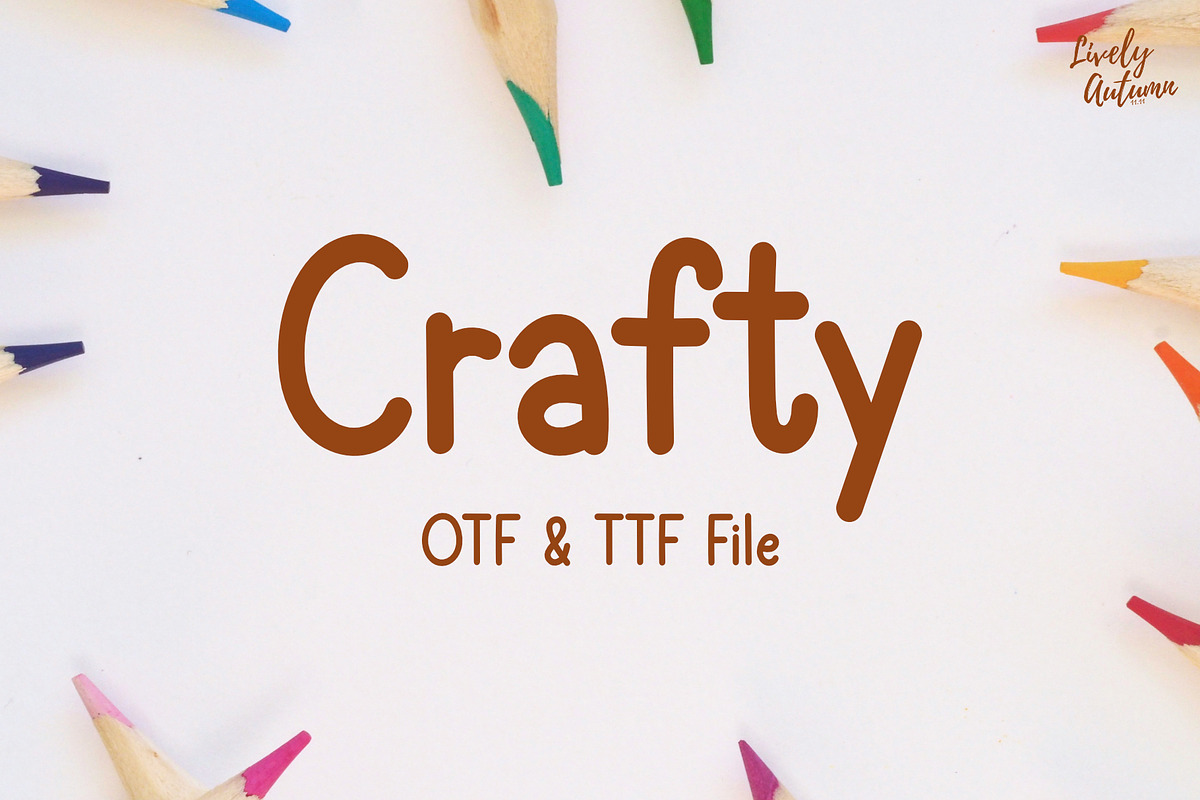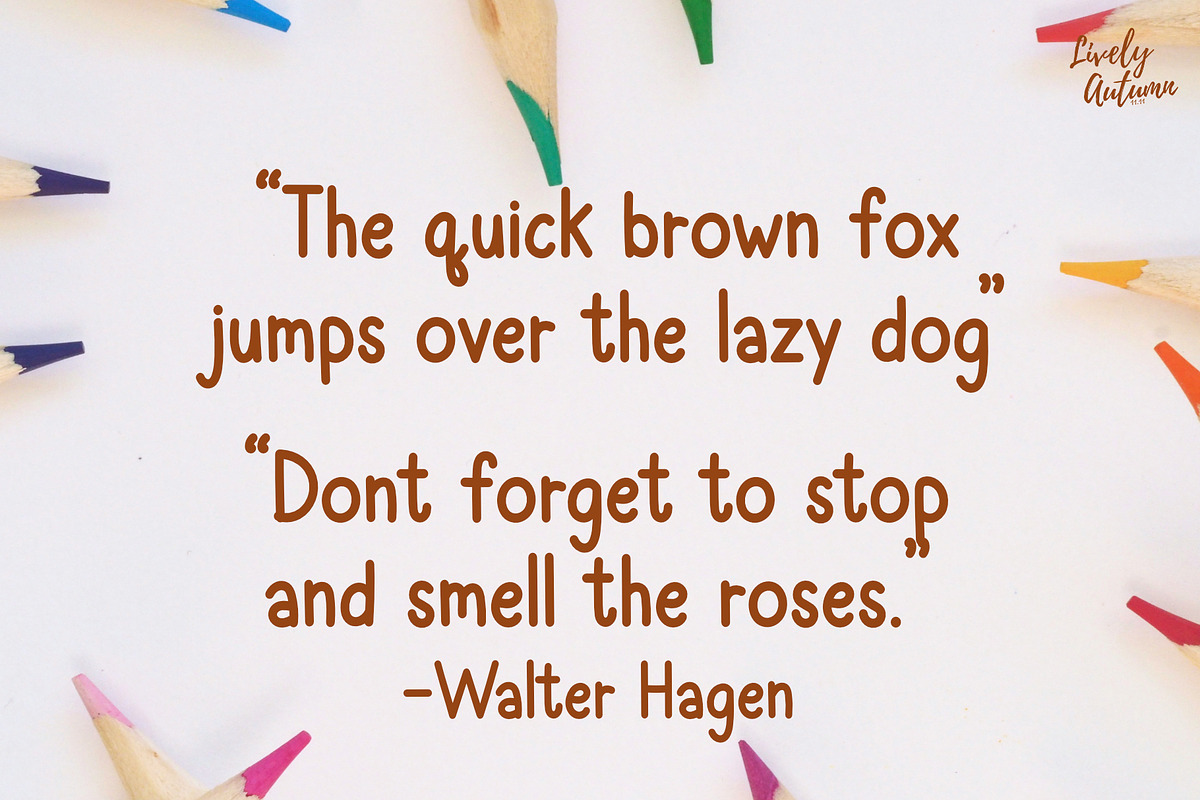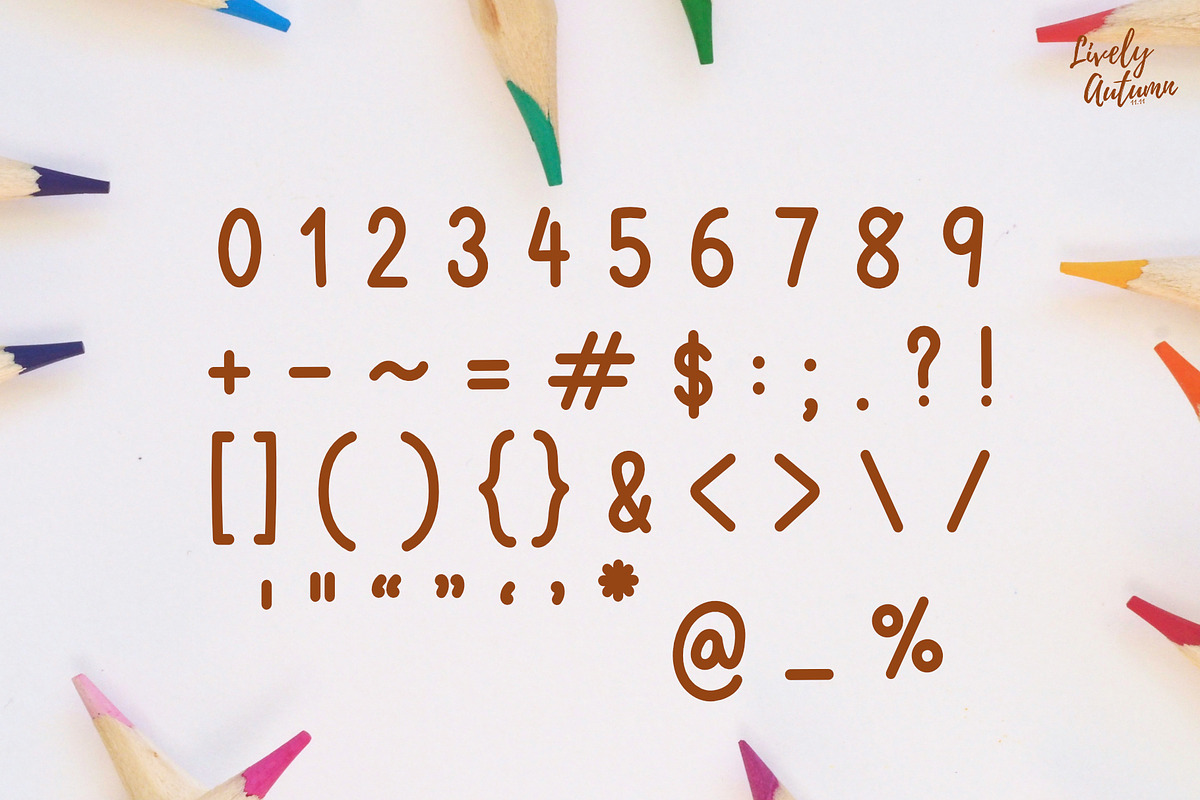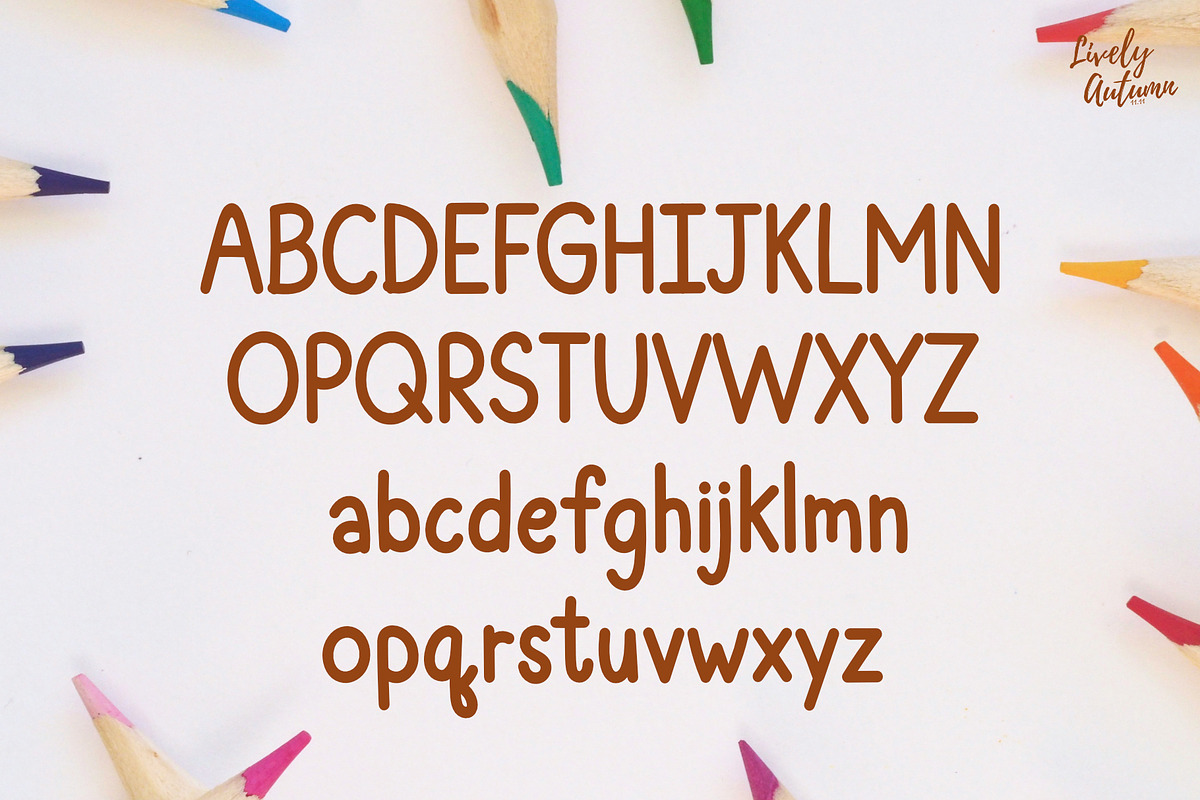
Crafty Font
Crafty Font is a simple, handwritten font. Perfect for your fun projects, personal projects, cute-themed projects, and various projects. From invitations to posters, social media graphics, journals, and much more.
- Font includes: uppercase, lowercase, numbers, and symbols